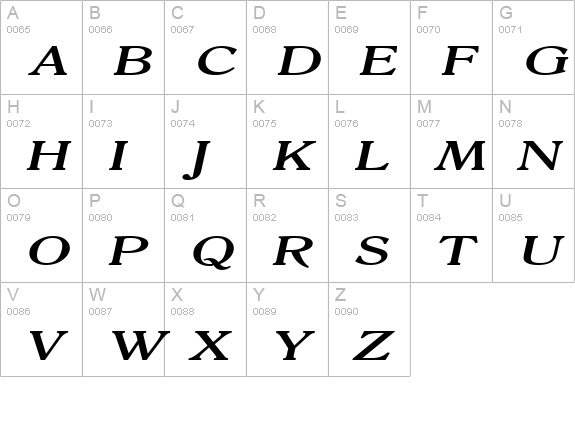
Roomy Extended BoldItalic is a distinctive, extended-width variant in the Roomy typeface family \xE2\x80\x94 well suited to design and typography projects.
Roomy Extended BoldItalic font is a bold and stylish typeface that exudes confidence and modernity. Its extended width and italicized design make it perfect for making a statement in your projects. This font is versatile and can be used for various design purposes, from headlines to branding to signage. The best part is that Roomy Extended BoldItalic font is completely free to download at FontsMarket.com. You can easily access this eye-catching font and enhance your designs without any cost. Don't miss out on adding this unique and impactful font to your collection today!